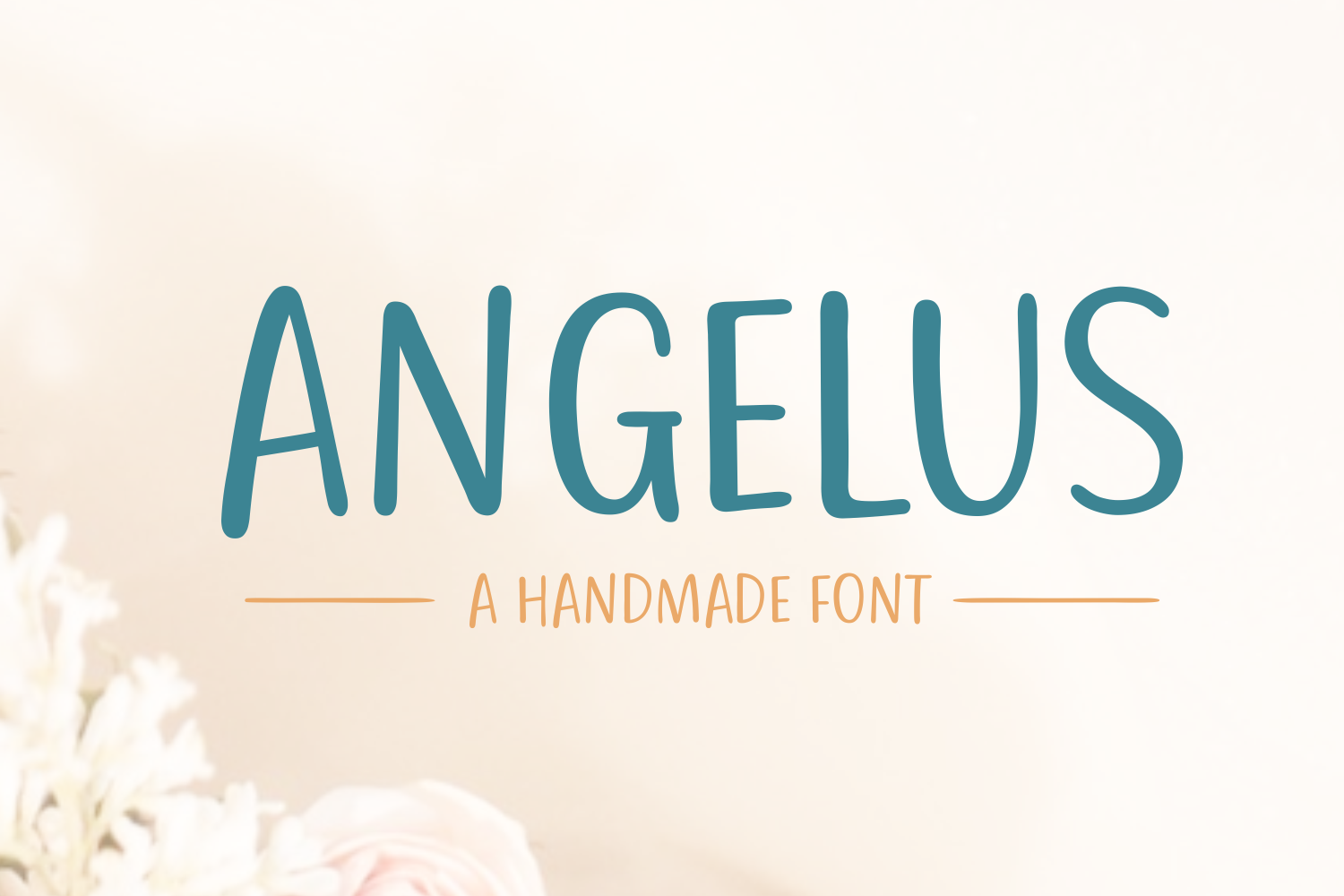
The Angelus Font: A Playful and Smooth Hand-Painted Delight
I still remember the design project that led me to discover the Angelus font. I was working on a whimsical branding project for a children’s play area, and I was struggling to find the perfect font that would capture the playful and imaginative vibe of the brand. That’s when I stumbled upon Angelus, a fine hand-painted font that instantly won my heart. In this article, I’ll share my experience with the Angelus font, its features, and how to make the most of it in your designs.
An Honest Review of Angelus Font
What I Love About Angelus Font
- ✨ Smooth Exterior: The Angelus font has an extremely smooth exterior, making it a joy to work with.
- ✅ Playful Personality: The font has a playful and whimsical personality that is perfect for creative projects.
- 🎨 Hand-Painted Look: The font was originally created on paper with a brush, giving it a unique, hand-painted look.
- 🖌️ Versatile: Angelus font can be used for a variety of design projects, from branding to packaging to digital graphics.
While the Angelus font is a delightful find, it’s not without its quirks. Here are a few things to keep in mind:
- ⚠️ Limited Character Set: The font may not have an extensive character set, which could limit its use in certain projects.
- 🤔 Legibility at Small Sizes: Like many script fonts, Angelus may not be legible at very small sizes, so it’s best used at larger sizes.
If you love the Angelus font, you may also want to consider these similar fonts:
- Pacifico: A beautiful, modern script font with a similar feel to Angelus.
- Great Vibes: A fun, hand-painted script font with a playful personality.
- Lobster: A elegant, refined script font with a sophisticated feel.
- Carolyna Pro: A lovely, handwritten script font with a whimsical touch.
The Backstory of Angelus Font
The Angelus font was created by a talented designer who wanted to capture the essence of hand-painted lettering. The font was originally painted on paper with a brush, and then scanned and digitally optimized to create a smooth, high-quality font. The designer’s goal was to create a font that would be both playful and elegant, making it perfect for creative projects.
Q: What is the Angelus font best used for?
A: The Angelus font is best used for creative projects that require a playful and whimsical touch, such as branding, packaging, and digital graphics.
Q: Is the Angelus font suitable for body text?
A: While the Angelus font is beautiful, it’s not recommended for body text due to its script nature and potential legibility issues at small sizes.